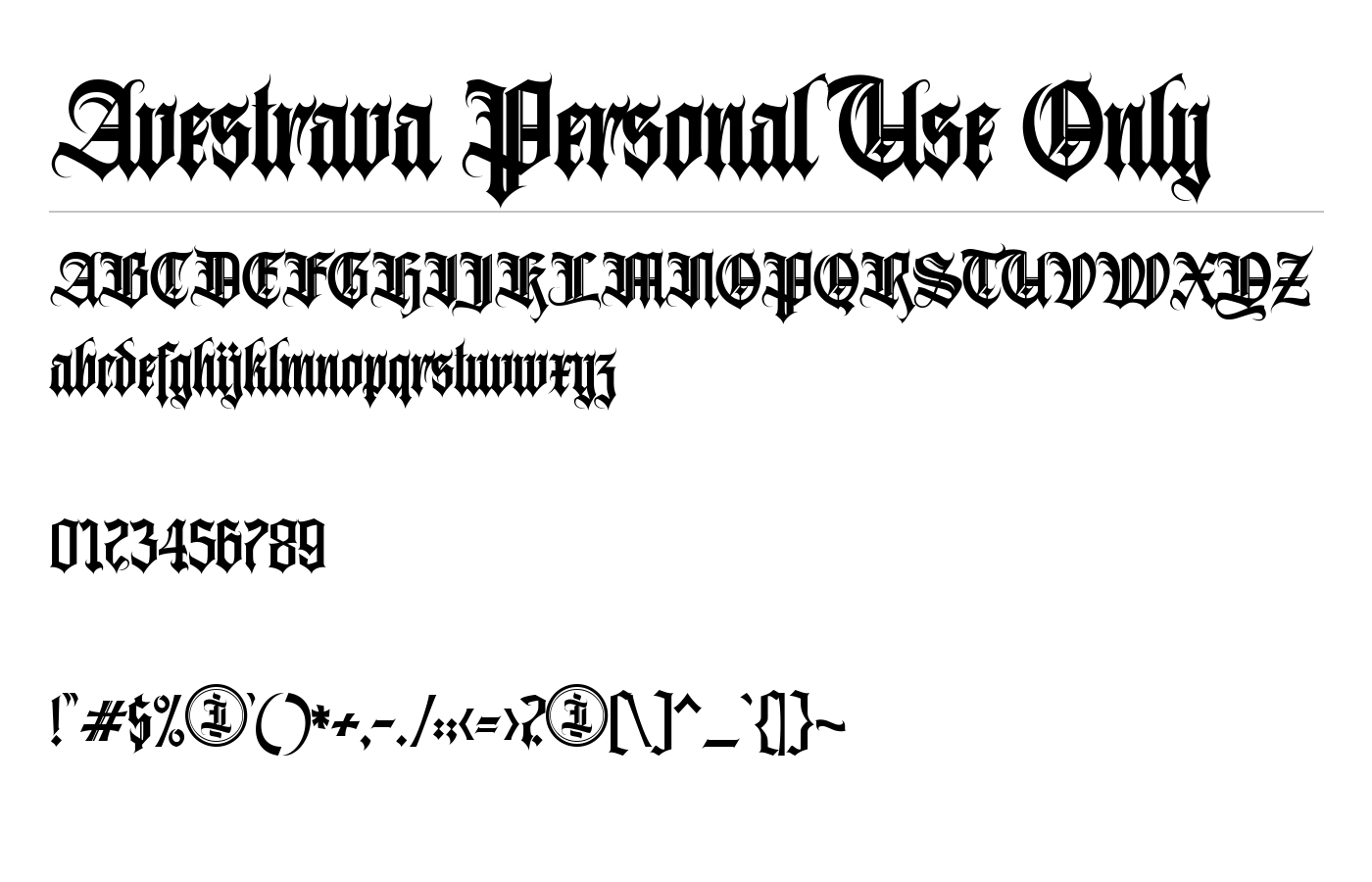
Avestrava Personal Use Only is a bold blackletter serif font with a strong gothic vibe, characterized by its sharp, angular strokes and dense, decorative letterforms. Its condensed structure and high contrast between thick and thin lines give it a dramatic, medieval feel, making it ideal for headlines, logos, or designs seeking a vintage, rebellious, or historical aesthetic. This font works best in branding or editorial projects where a striking, traditional yet edgy look is desired.
| Font family | Avestrava Personal Use Only Font |
| Designer | Ilham Wahyu |